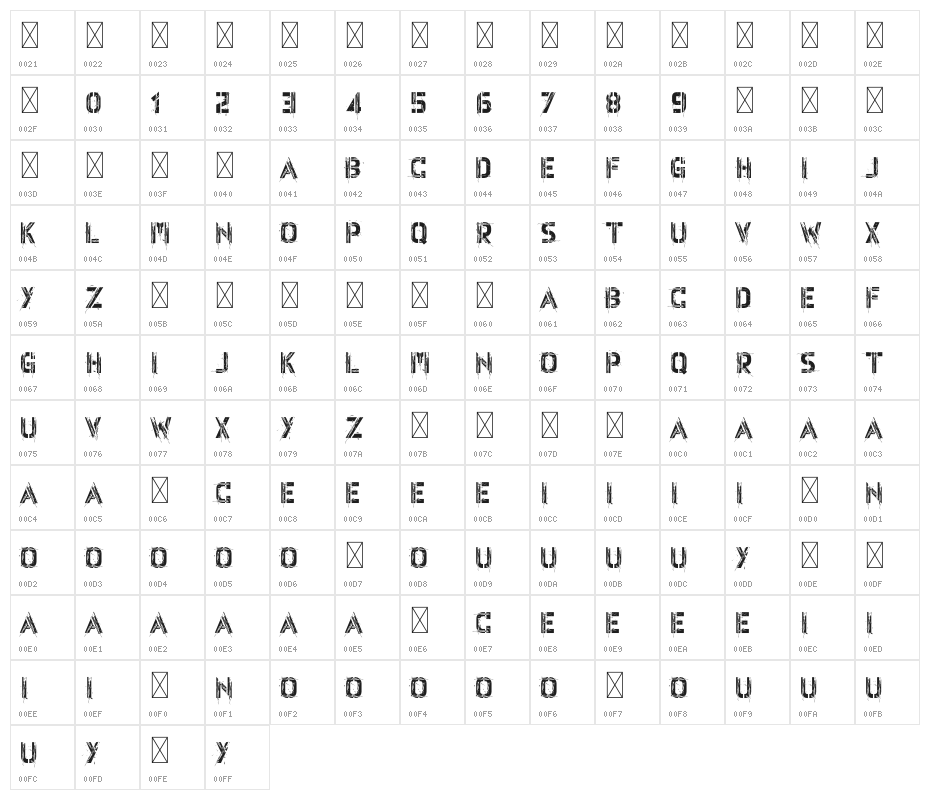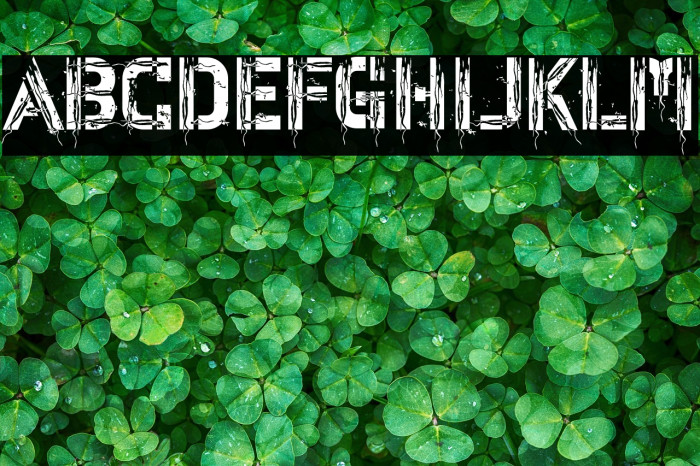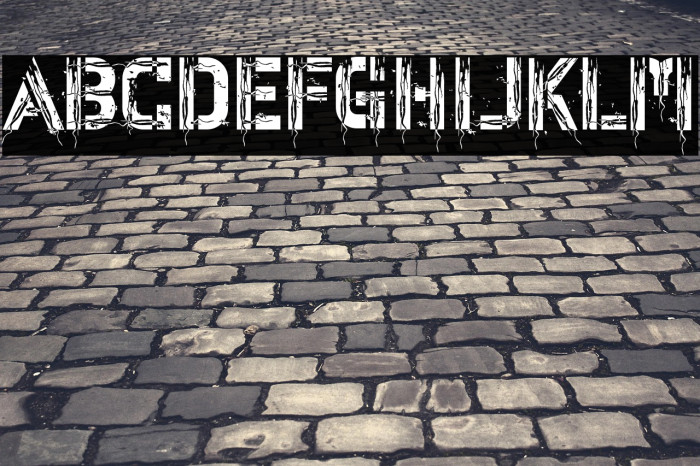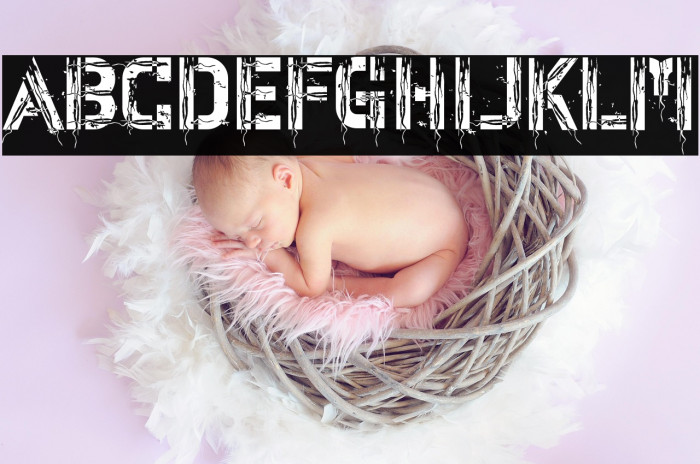
Net Bold Font
This font features a distressed and grungy aesthetic, characterized by its rough edges and irregular textures. The characters are bold and impactful, with a unique appearance that suggests wear and tear, making it ideal for designs that require a rugged or edgy look. The uppercase and lowercase letters maintain a consistent style, while the numbers and special characters complement the overall theme. This font's distinctive style is perfect for projects that aim to convey a sense of rebellion or nonconformity.
| Overall Style | Grunge, Edgy |
| Proposed Projects | Ideal for album covers, posters, streetwear branding, or any project needing an edgy, rebellious vibe. |